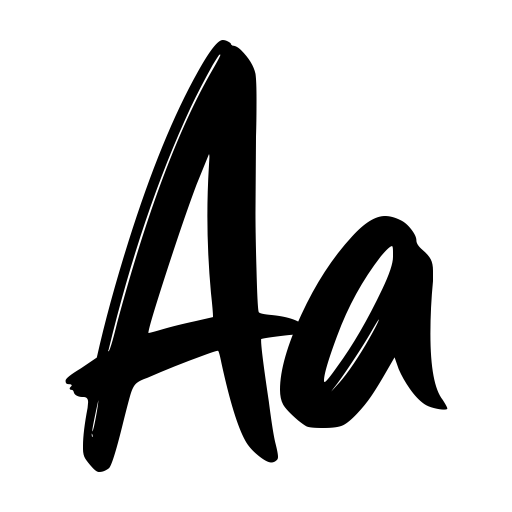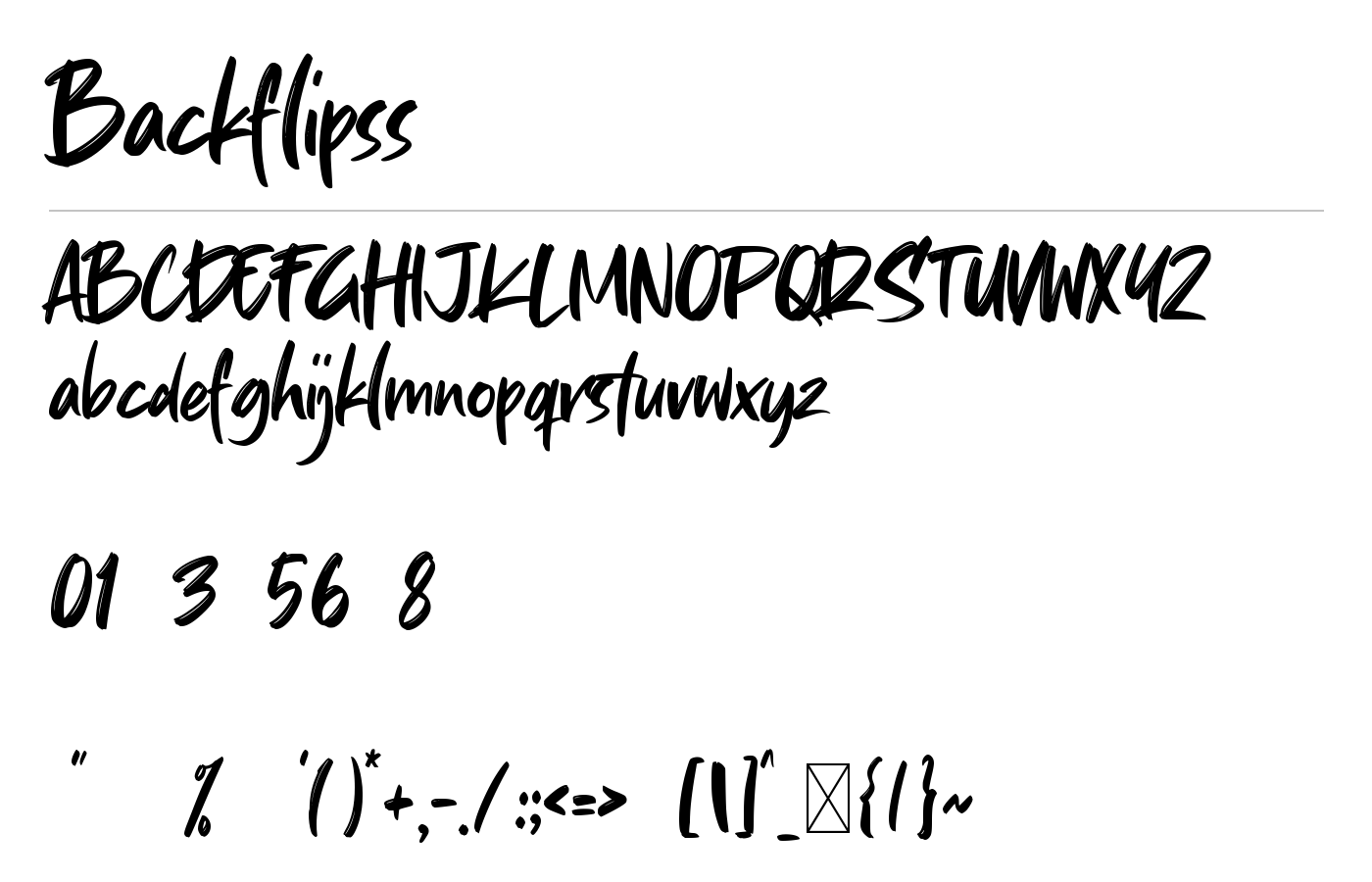
Backflipss is a lively handwritten script font with a casual and spontaneous feel. Its bold, brush-like strokes and playful letterforms make it perfect for creative projects that need an energetic and personal touch. This font works well for branding, posters, and social media where a fun, informal vibe is desired.
Backflipss Font
About Backflipss Font
| Font family | Backflipss Font |
| Designer | Anang F & Malik Wsn | Gassstype© Studio 2022 |